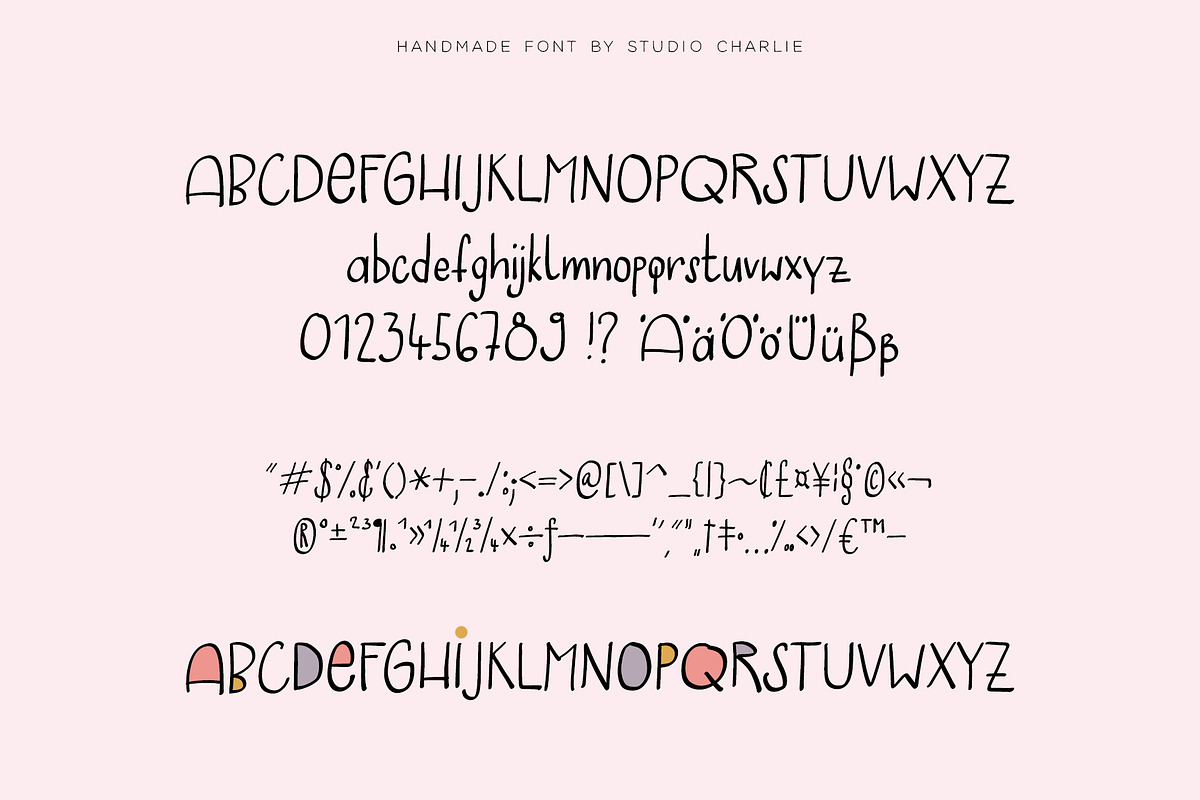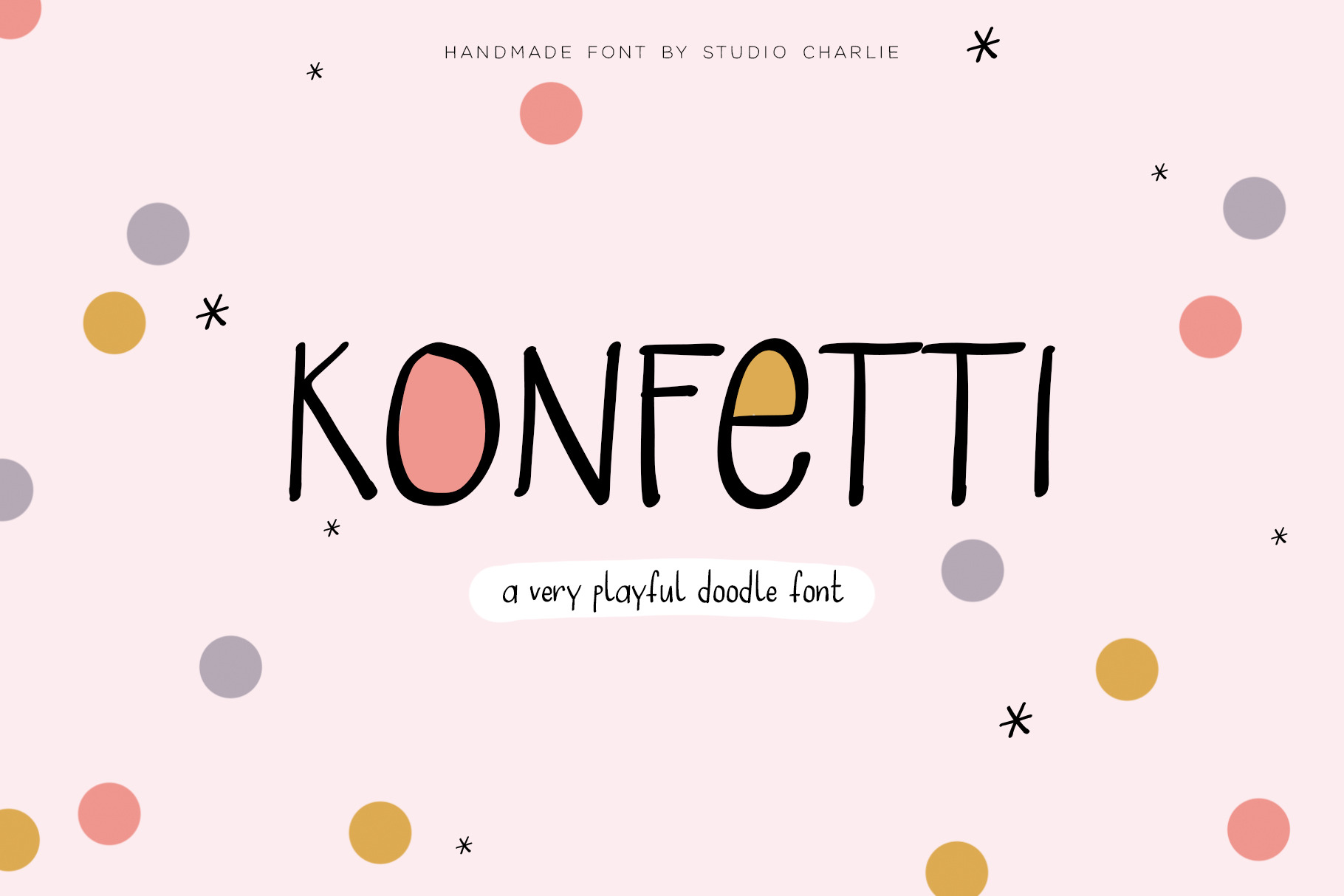
Konfetti - A Playful Doodle Font
Konfetti is a cute handwritten doodle font that supports English and German characters. The OTF font file comes with a full alphabet of both lower- and uppcase letters as well as numbers and punctuation. Some extra glyphs have been added for fun writing.
We extra love this font because it looks even cuter when colored.